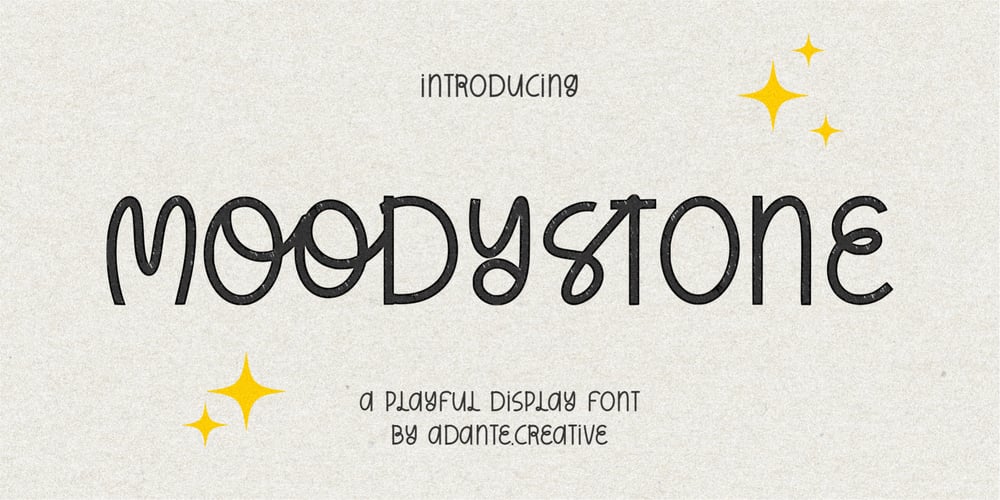
Moodystone Font Family was designed by Yanto Suheri and published by Adante Creative. Moodystone contains 1 styles and family package options. Moodystone A Playful Display FontMoodystone is perfect for product packaging, branding project, magazine, social media, wedding, or just used to express words above the background.Moodystone also multilingual support.Enjoy the font, feel free to comment or feedback, send me PM or email.